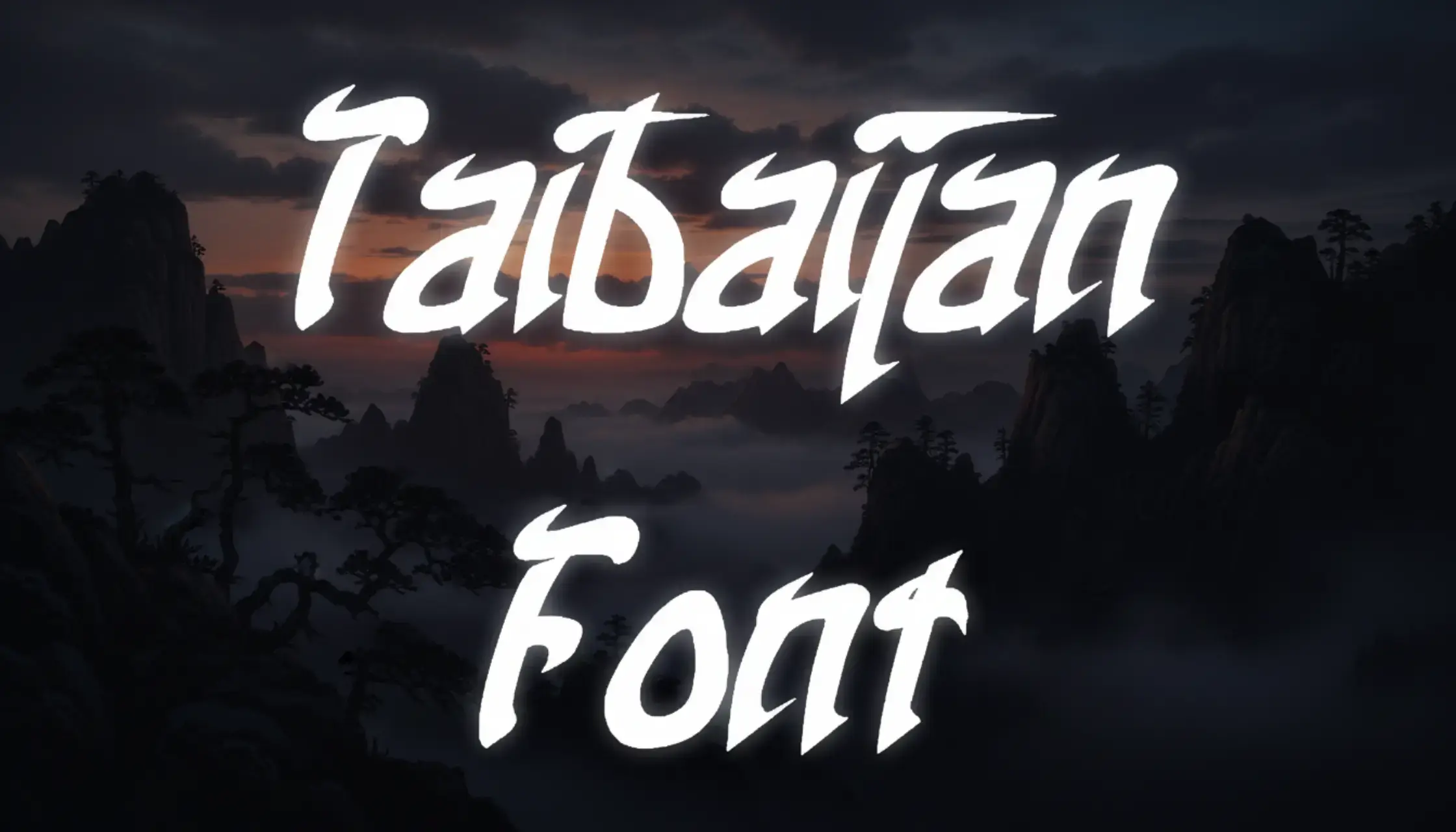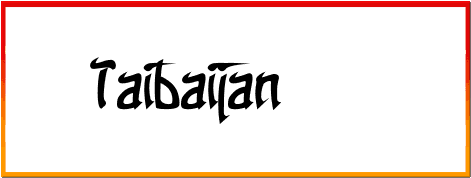
Neale Davidson designed Taibaijan, a highly stylized, Arabic-inspired fantasy simulation display typeface, and published it through Pixel Sagas. Originally created as a custom typography asset for a tabletop gaming campaign, it maps standard Latin characters into exotic, fluid letterforms that mirror Middle Eastern and North African calligraphic aesthetics.
Taibaijan
Taibaijan is an Arabic-style font created by Neale Davidson and released through Pixel Sagas (2015).
- Designer: Neale Davidson
- Publisher: Pixel Sagas
- Category: Arabic-style font
- Font styles: 4 (Regular, Bold, Bold Italic and Italic)
- Glyphs: 236 in the Regular style